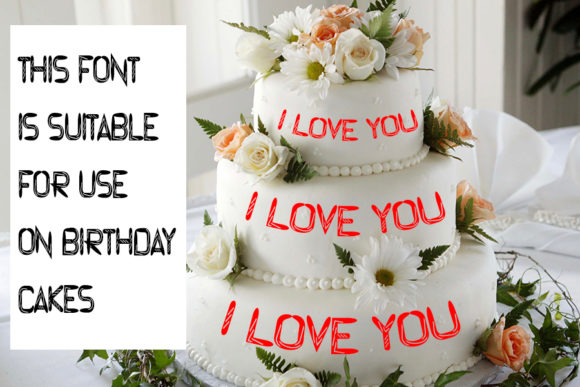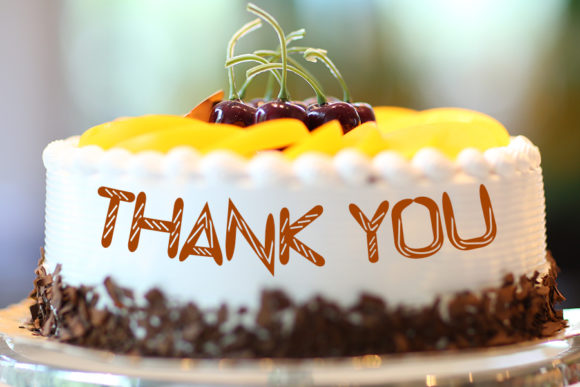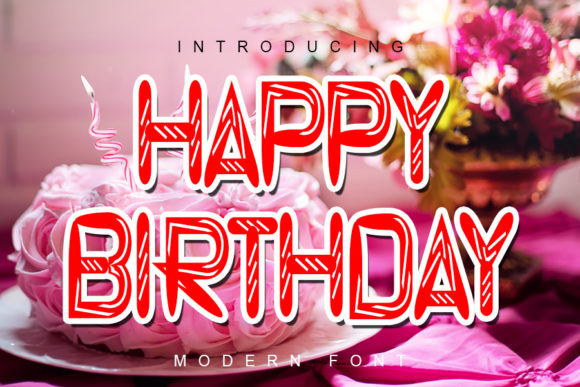
Introducing Happy Birthday Font: The Perfect Addition to Your Design Arsenal
Are you tired of using the same old fonts for your designs, crafts, and greeting cards? Look no further! Happy Birthday Font is here to take your creations to the next level. This bold display font boasts the perfect amount of trendiness, making it an ideal choice for designers, crafters, and anyone looking to add a personal touch to their work.
What Makes Happy Birthday Font So Special?
Happy Birthday Font is a versatile and stylish font that can be used for a wide range of projects. Whether you’re working on a digital design, crafting a handmade card, or creating a presentation, this font is sure to make your work stand out. Its bold and eye-catching design makes it perfect for headlines, titles, and any other text that needs to grab attention.
Key Features of Happy Birthday Font
- Bold and Displayed: Happy Birthday Font is a bold display font that makes a statement. Its thick lines and sturdy design ensure that your text is always visible and attention-grabbing.
- Trendy and Modern: This font features a trendy and modern design that’s perfect for anyone looking to add a touch of contemporary style to their work.
- Versatile: Happy Birthday Font can be used for a wide range of projects, from digital designs and presentations to crafting and greeting card making.
- Easy to Read: Despite its bold design, Happy Birthday Font is easy to read, making it perfect for use in a variety of contexts.
Uses for Happy Birthday Font
Happy Birthday Font is perfect for a wide range of projects, including:
- Crafting: Use Happy Birthday Font to add a personal touch to your handmade crafts, such as cards, gift tags, and scrapbook pages.
- Digital Designing: Add a bold and trendy touch to your digital designs, such as social media graphics, blog posts, and website headers.
- Presentations: Use Happy Birthday Font to make your presentations more engaging and attention-grabbing.
- Greeting Cards Making: Create personalized and stylish greeting cards for birthdays, holidays, and other special occasions.
Tips for Using Happy Birthday Font
Here are a few tips for getting the most out of Happy Birthday Font:
- Use it as a Headline Font: Happy Birthday Font is perfect for use as a headline font, where its bold design can really make an impact.
- Experiment with Colors: Try using Happy Birthday Font in different colors to add some extra visual interest to your designs.
- Pair it with Other Fonts: Happy Birthday Font pairs well with a wide range of other fonts, so don’t be afraid to experiment with different combinations.
Happy Birthday Font is a versatile and stylish font that’s perfect for designers, crafters, and anyone looking to add a personal touch to their work. Its bold and trendy design makes it ideal for a wide range of projects, from digital designs and presentations to crafting and greeting card making. So why not give it a try and see the difference it can make to your creations?
Whether you’re a seasoned designer or a crafty beginner, Happy Birthday Font is sure to become a favorite in your font arsenal. So go ahead, get creative, and make your designs stand out with Happy Birthday Font!